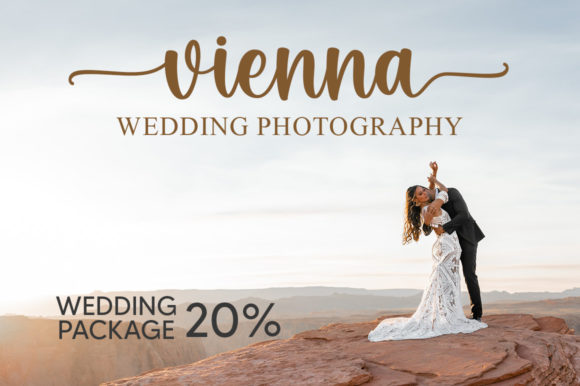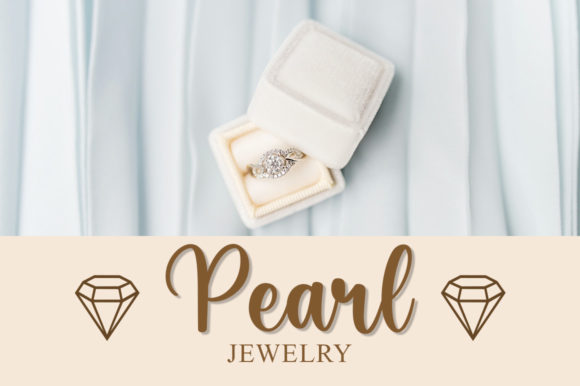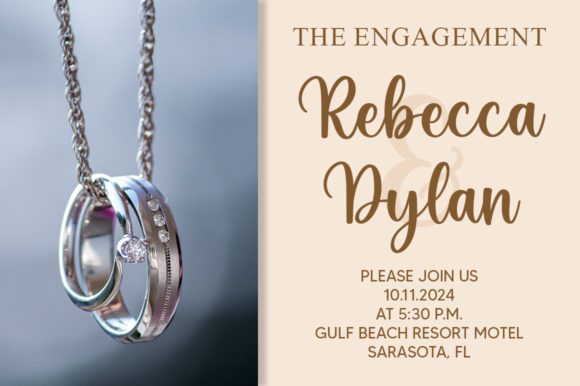
About Rosemary Font
“Rosemary” is a delicate and elegant handwritten font that exudes a sense of grace and beauty. This font features well-balanced characters that add a touch of sophistication to a wide range of design projects.
The flowing and graceful nature of “Rosemary” makes it a versatile choice for various design contexts. Its delicate strokes and elegant curves contribute to its overall aesthetic appeal, making it suitable for creating logos, branding materials, invitations, stationery, and more.
Furthermore, “Rosemary” is PUA encoded, which means that you can easily access all of its glyphs and swashes, allowing you to customize and enhance your designs with decorative elements and artistic flourishes.
In summary, “Rosemary” is a font that embodies elegance and versatility. Its delicate and well-balanced characters make it a valuable asset for designers seeking to create designs that are both visually appealing and refined. Whether you’re working on formal invitations or branding materials, “Rosemary” can add a touch of sophistication to your projects and elevate them to a new level of beauty.